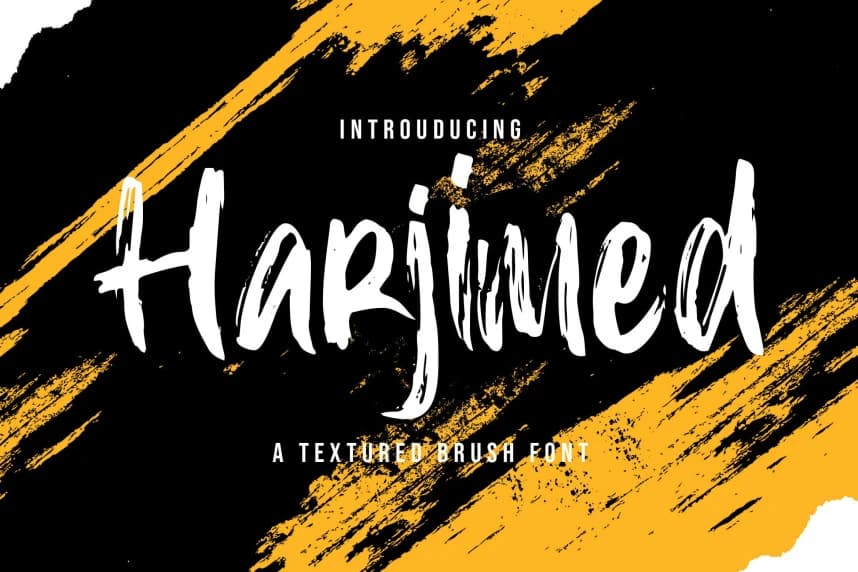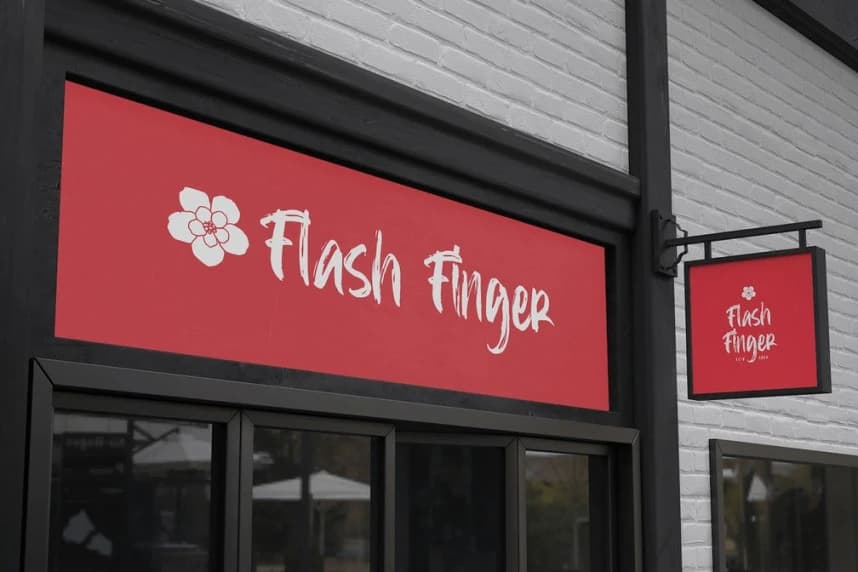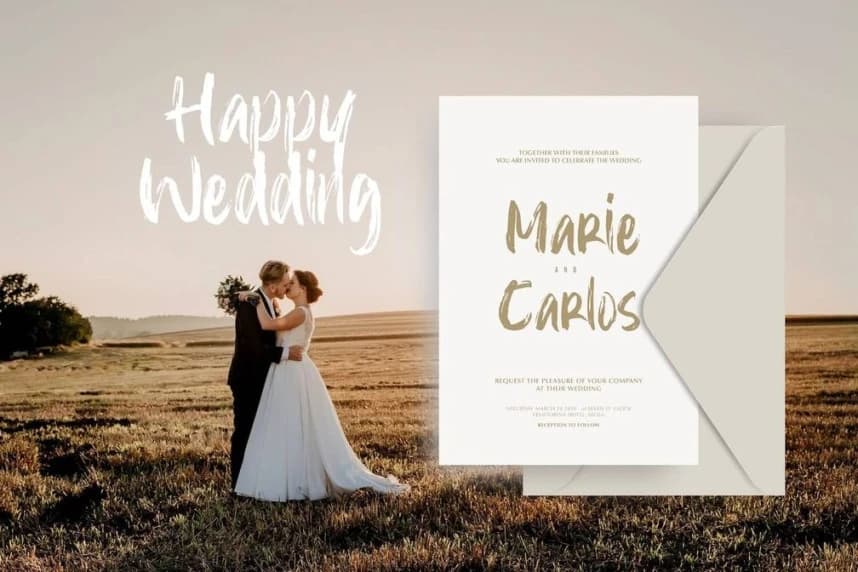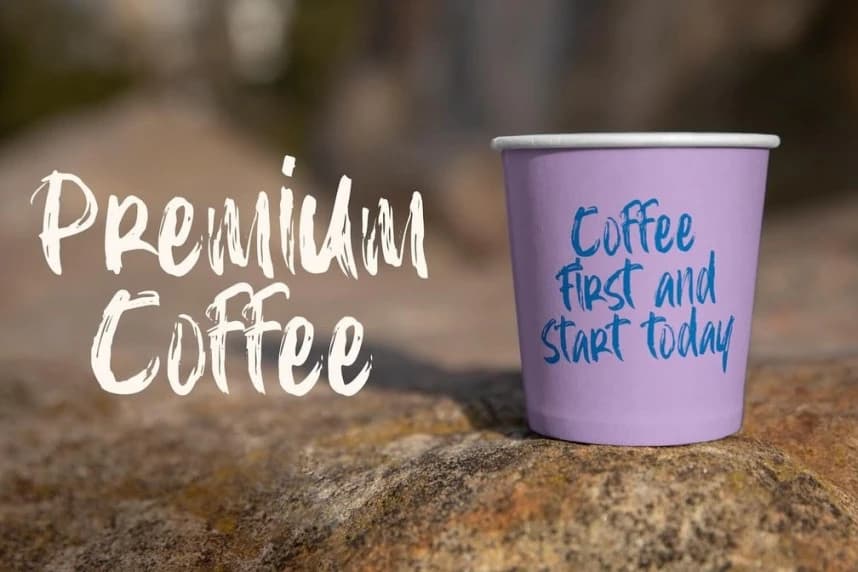
Harjimed Brush Font
Harjimed Brush Font is a textured handbrush font. Harjimed is a flowing and stylish display brush font, created with the help of a brush pen. Get inspired by its unique and beautiful style and add it to your favorite designs!